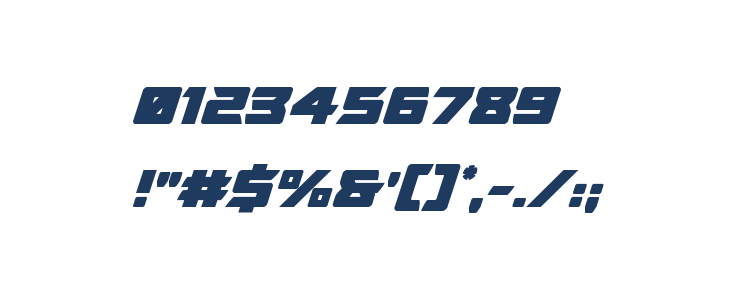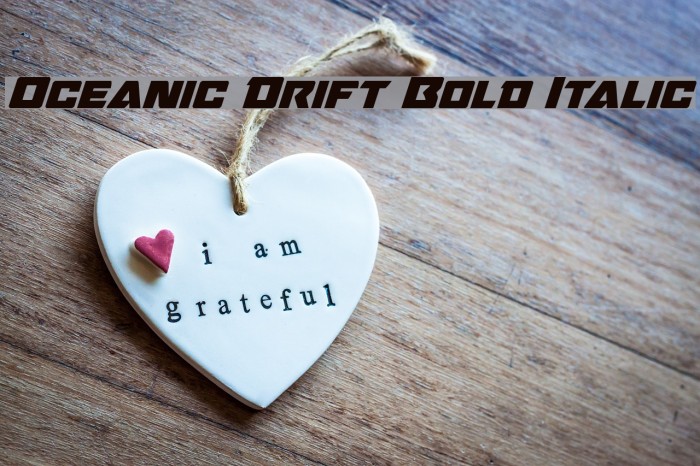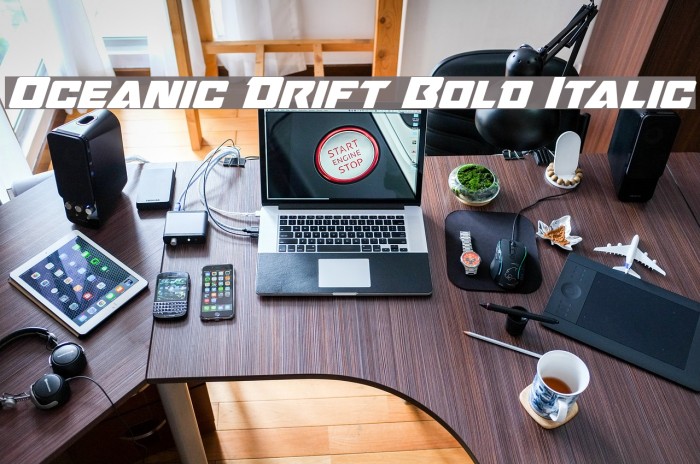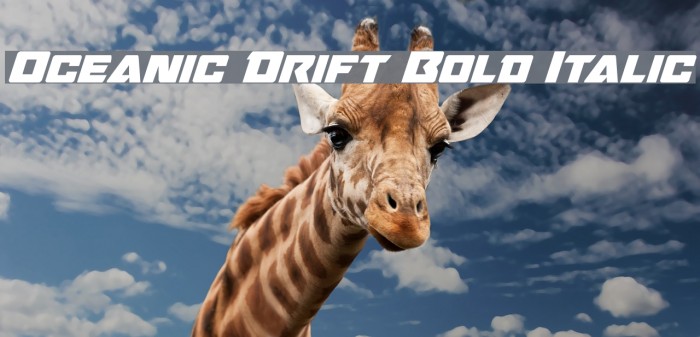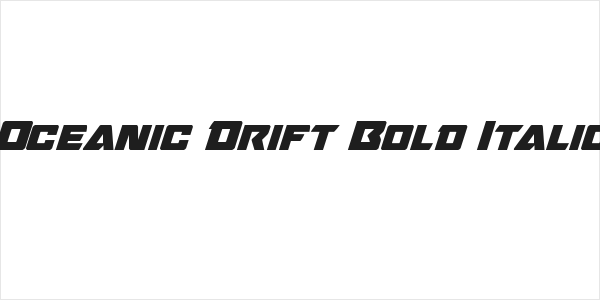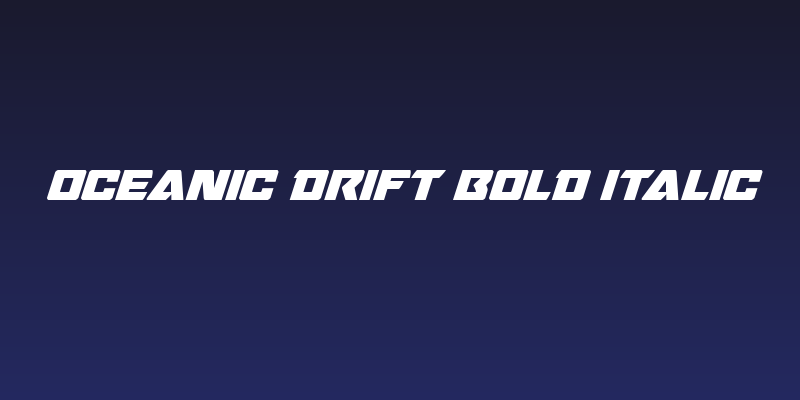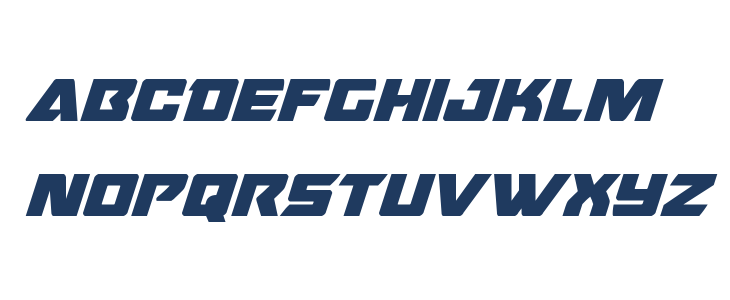
Oceanic Drift Bold Italic Font
Oceanic Drift Bold Italic Description
This font features a bold and italicized style with a strong, dynamic presence. The characters are slanted, giving a sense of motion and energy. The strokes are thick and consistent, contributing to a robust and impactful appearance. The design is modern and sleek, with sharp angles and clean lines that enhance its contemporary feel. The uppercase and lowercase letters maintain a uniform style, ensuring readability while adding a distinctive flair. The numerals and special characters are designed to match the overall aesthetic, providing a cohesive look across all elements.
| Proposed Projects | Ideal for sports branding, dynamic logos, posters, and headlines that require a strong visual impact. |